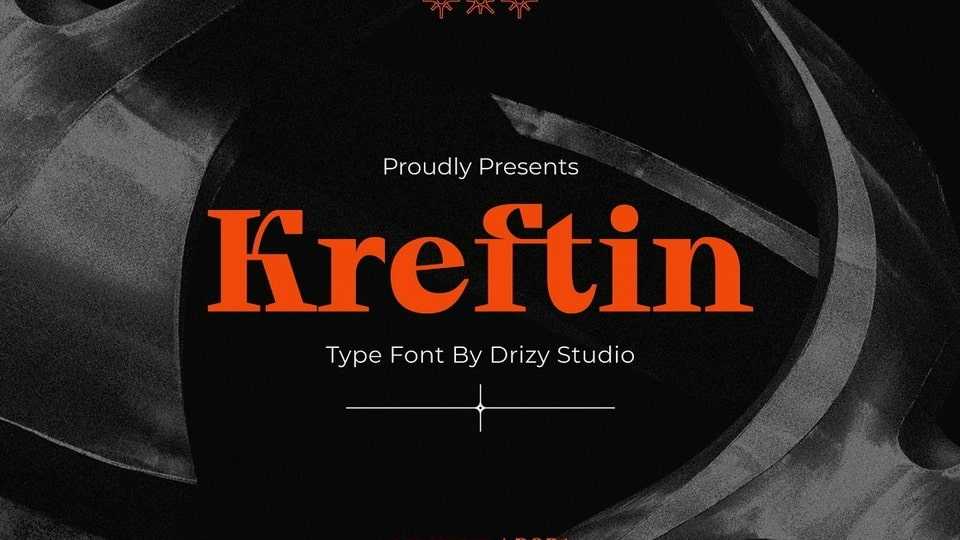
Download Kreftin font, a special serif typeface for modern design. Kreftin font will elevate a wide range of crafting ideas, from cards, to branding, labels and much more.
Designer: Drizy Studio